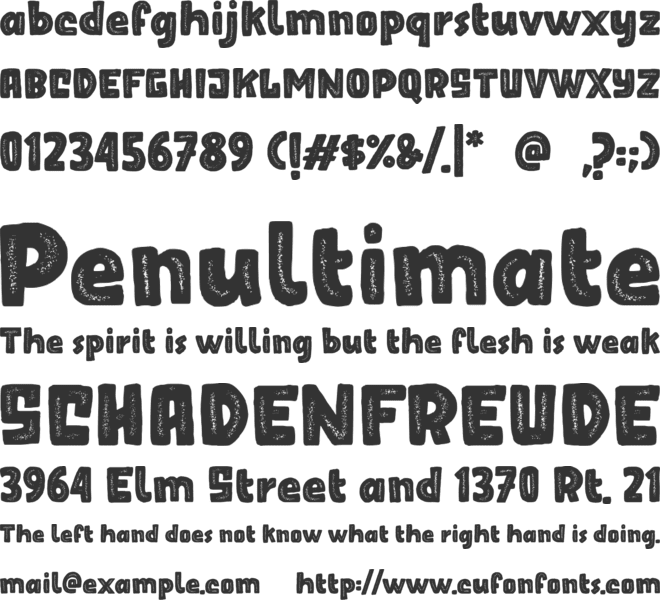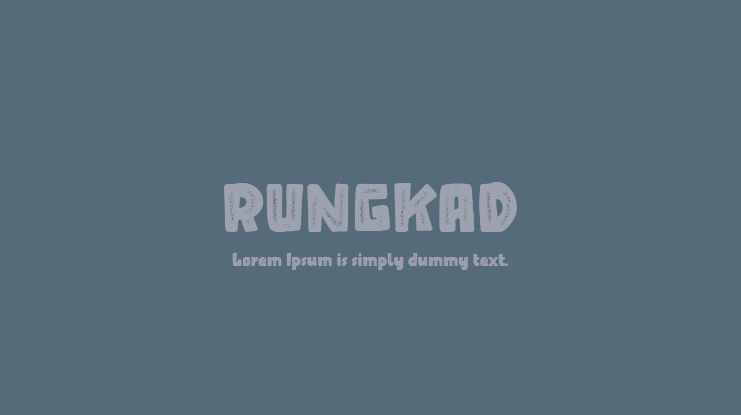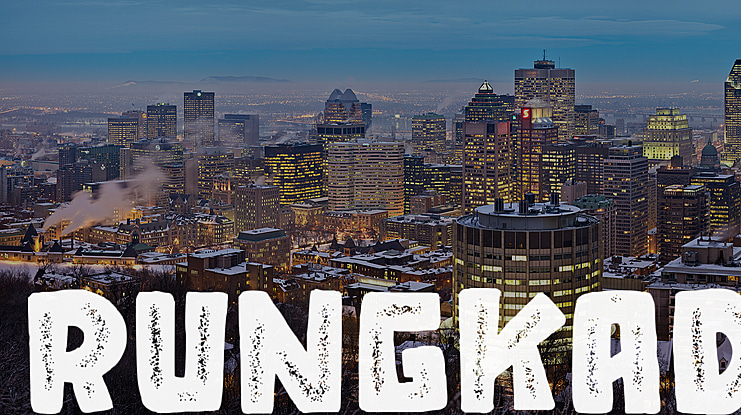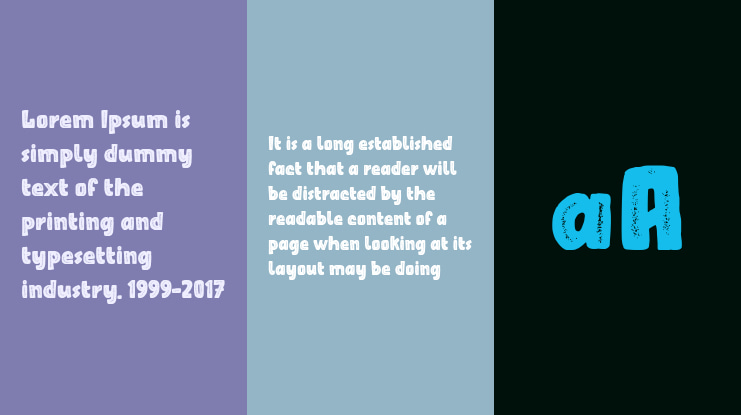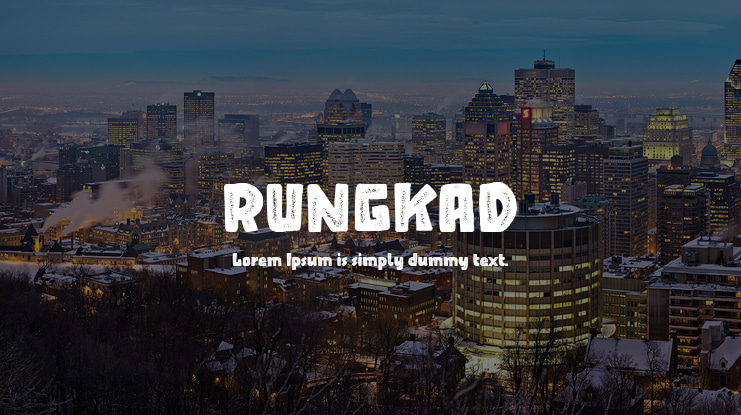
RUNGKAD Font Family
RUNGKAD comes with a rough texture that gives a natural and vintage impression, suitable for the needs of outdoor apparel, merchandise, event posters, movies, etc